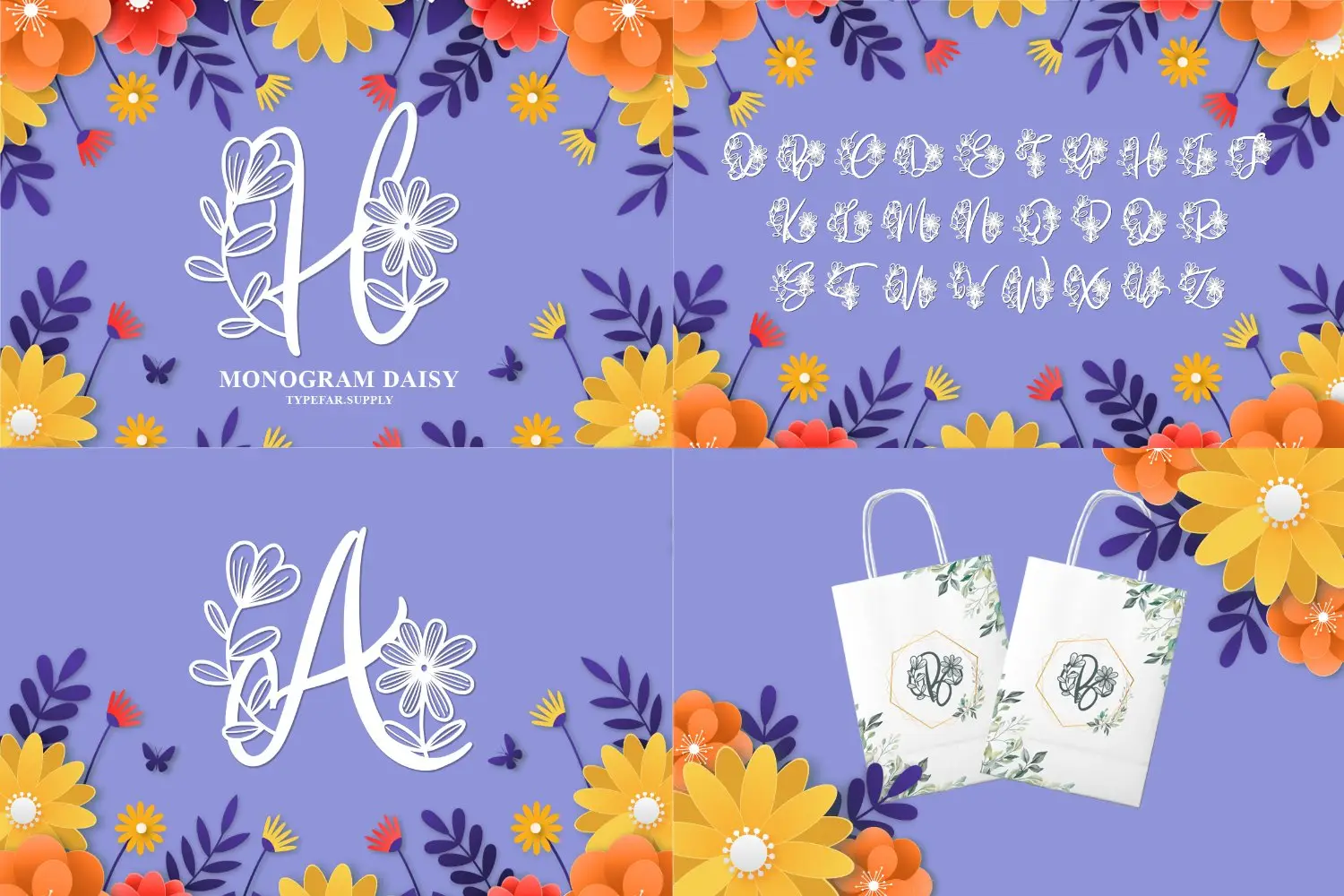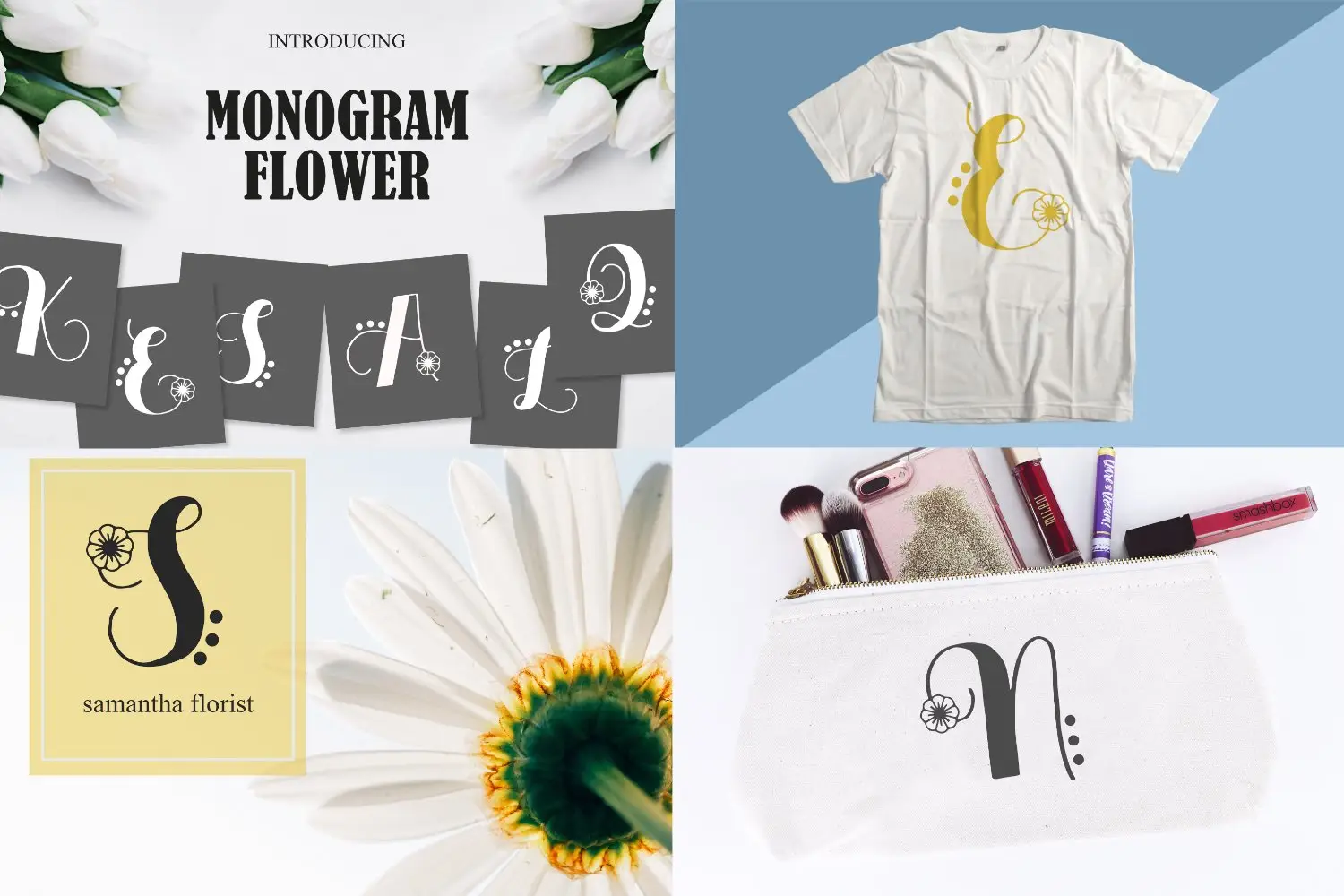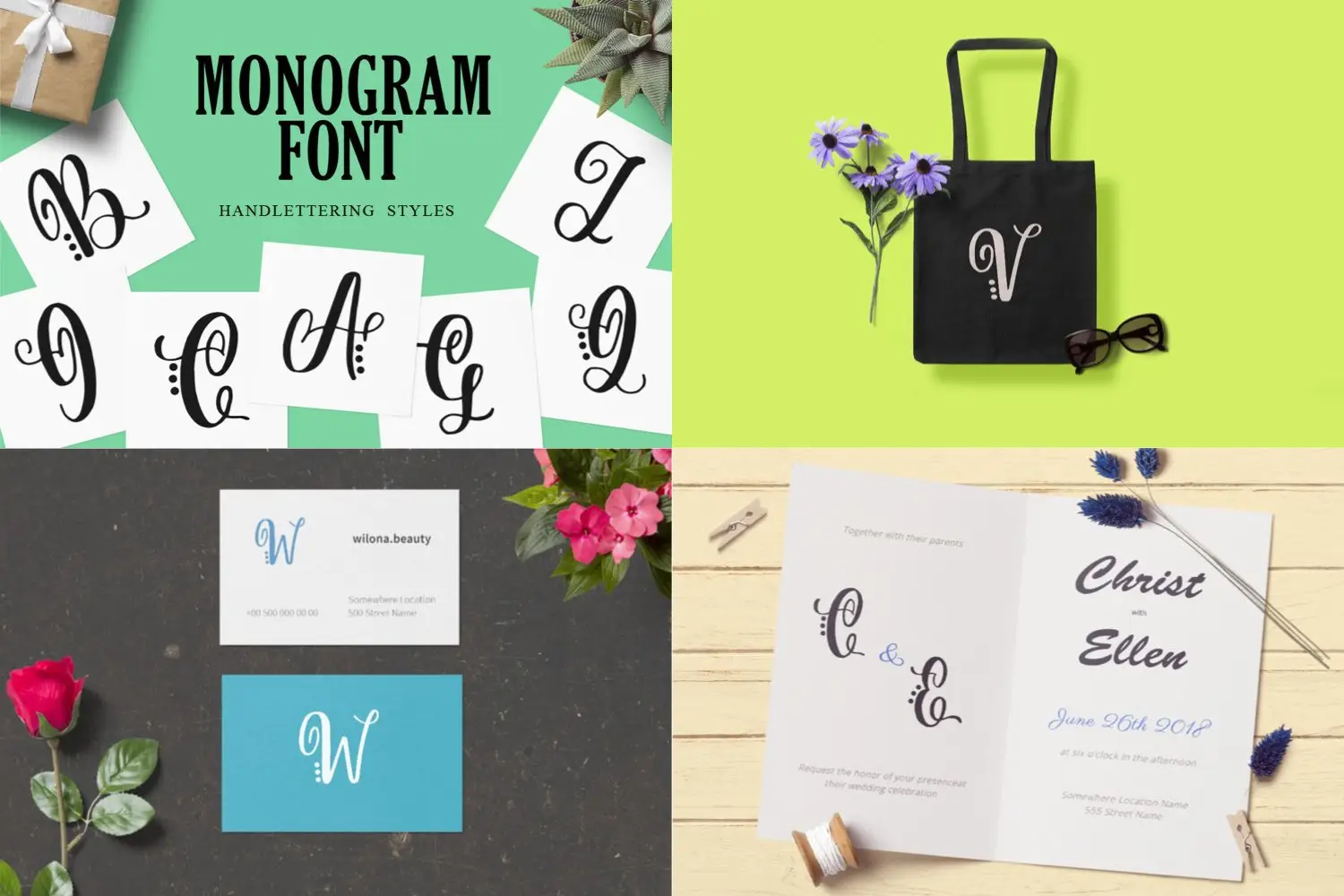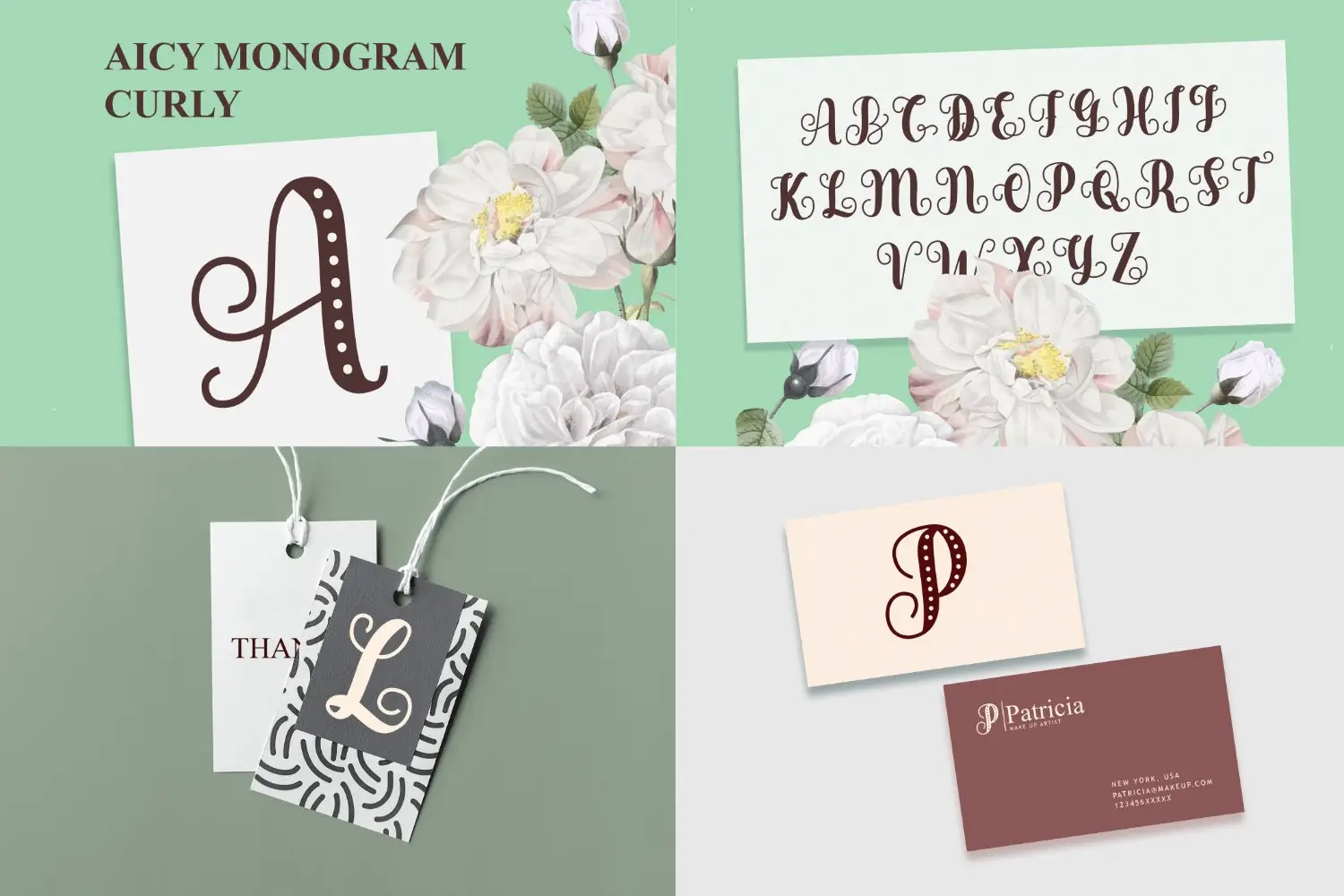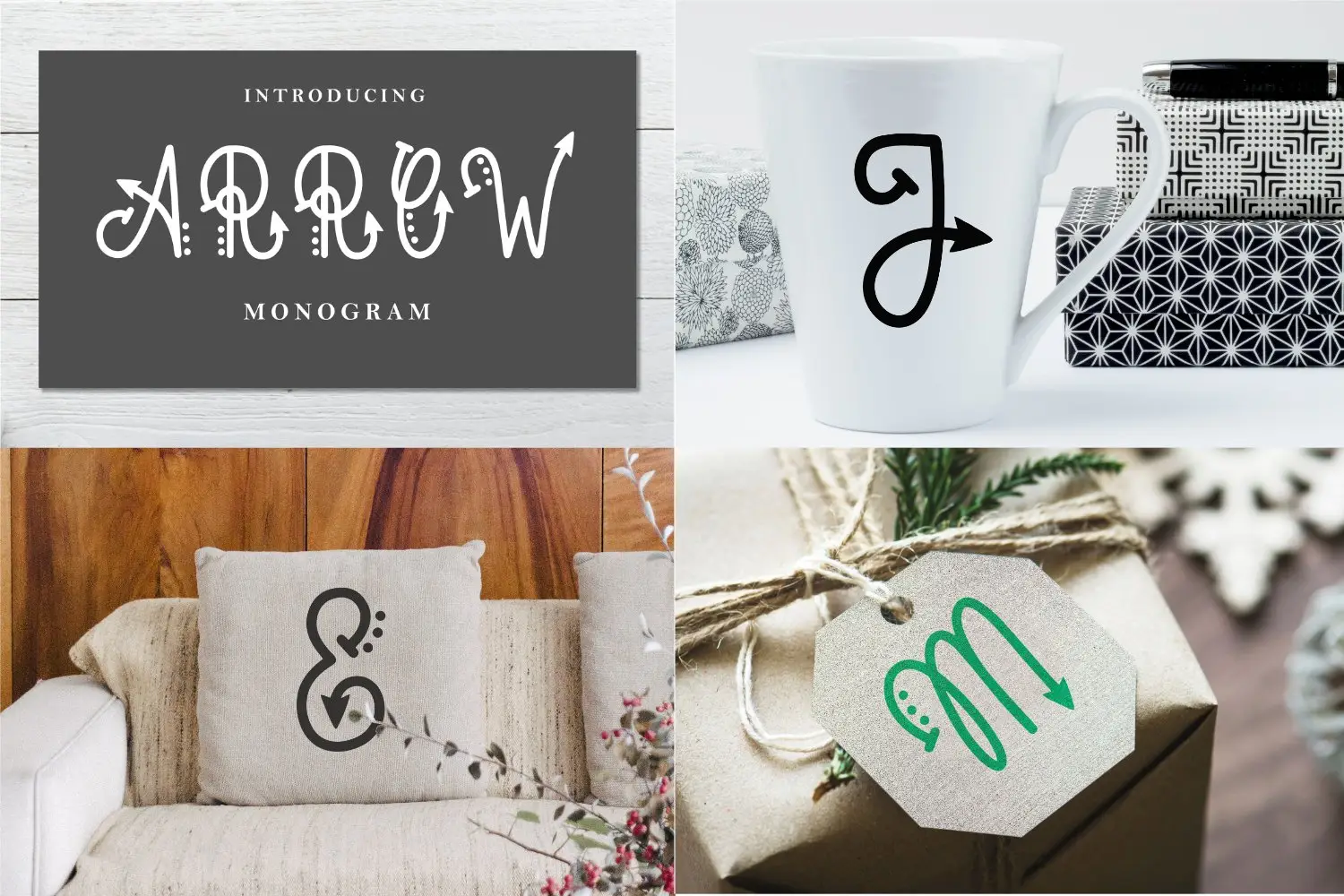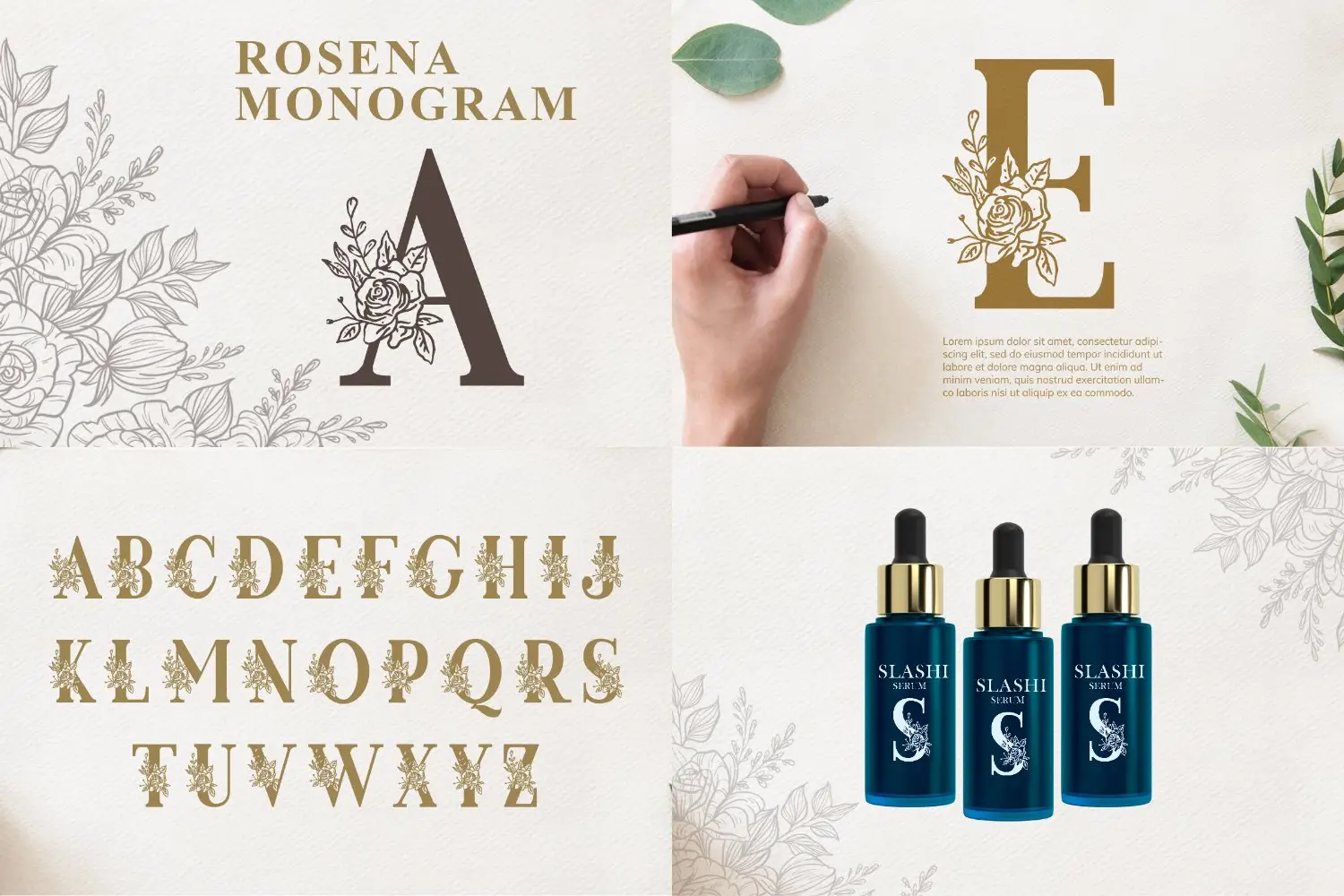
Welcome to the Monogram Font Mini Bundle!
This delightful digital download features an amazing collection of 10 stunning monogram fonts, all crafted to elevate your design projects! 🌟 Perfect for weddings, branding, or any creative endeavor, these fonts are ready for instant access, so you can start designing right away!
The Monogram Font Mini Bundle is a treasure trove of elegance and creativity. Whether you’re looking for minimalist monogram font styles or something more ornate, this bundle has it all! Each font has been designed to add a personal touch to your projects, making them truly unique. 💖
- Variety of Styles: With 10 different monogram fonts, you have endless possibilities for customization and creativity.
- Uppercase and Lowercase Letters: Versatile lettering options to fit your design needs.
- Rosena Monogram
- Curly Windy Monogram
- Arrow Monogram
- Lussy Monogram
- Aicy Monogram Curly
- Monogram Floral
- Monogram Handlettered for Crafters
- Sweet Monogram Floral
- Monogram Daishy
- Monogram Craft Font
This bundle is ideal for graphic designers, wedding planners, and anyone looking to add a touch of elegance to their projects. 🎨 Whether you’re crafting invitations, logos, or personal branding materials, these fonts are sure to impress!